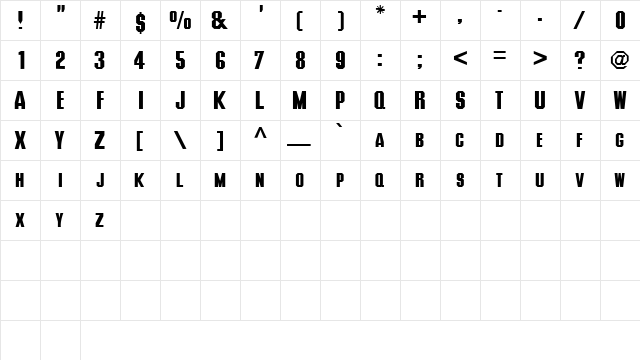
ScrimmageSCapsSSK Regular
Design Context for ScrimmageSCapsSSK Typeface
ScrimmageSCapsSSK is a composed and adaptable typeface that performs quietly and consistently across a wide range of design contexts.
Pro Tip: Use ScrimmageSCapsSSK in both headline and body roles to test its range before committing to a single application.